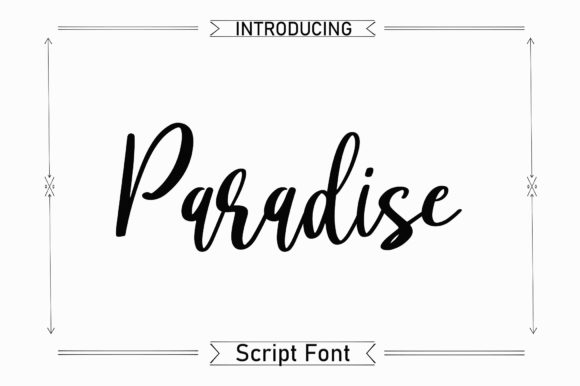
About Paradise Font
Paradise is a lovely and delicate script font that exudes elegance and class. This font was particularly crafted for those who need a beautiful and refreshing look to their designs. Paradise is a clean and beautiful handwritten font. This font is the perfect fit for all of your logos, branding, social media, and crafty DIY projects.